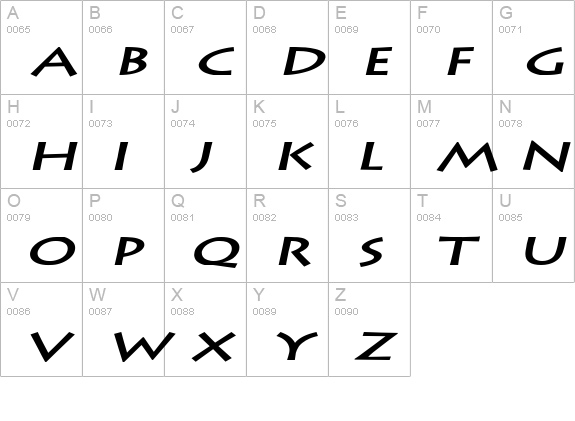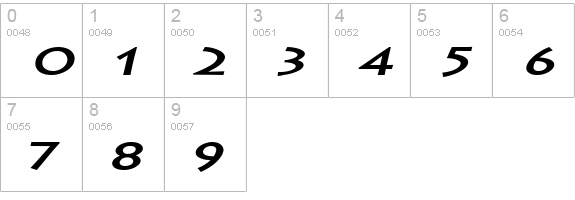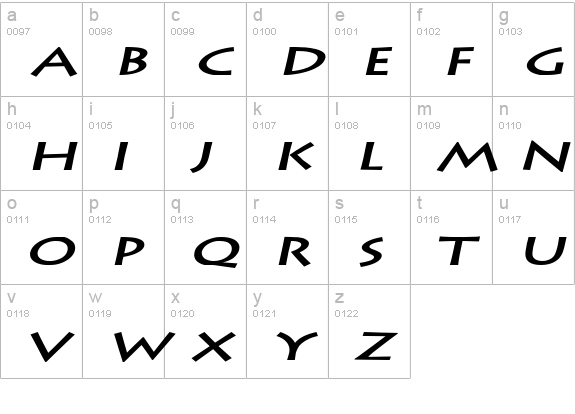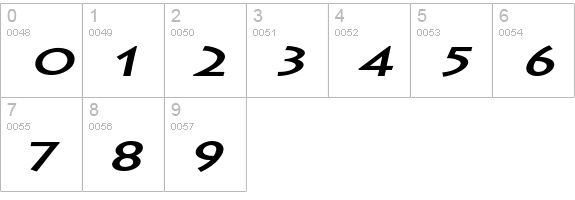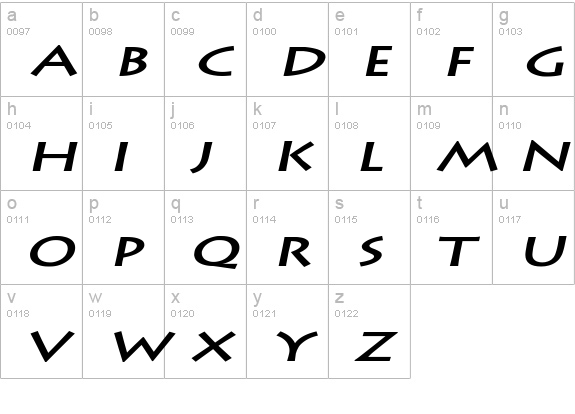
Liste Extended Bold Italic Font Details
Liste Extended Bold Italic is a strong, high-contrast, extended-width, italic variant in the Liste typeface family \xE2\x80\x94 well suited to headlines, attention-grabbing titles, and strong calls-to-action.
Liste Extended Bold Italic font is a striking and modern typeface that exudes elegance and sophistication. With its bold and italic design, this font is perfect for making a bold statement in your designs. The extended characters add a unique touch to any project, making it stand out from the crowd. What makes Liste Extended Bold Italic font even more appealing is that it is available for free download at FontsMarket.com. Whether you're working on a branding project, a website design, or any other creative endeavor, this font is sure to elevate your work to the next level. Don't miss out on the opportunity to add Liste Extended Bold Italic font to your collection and make your designs truly unforgettable.